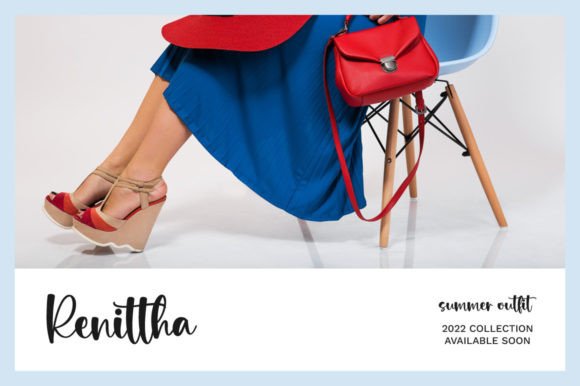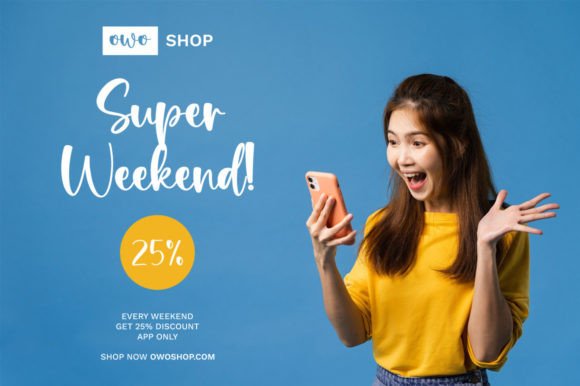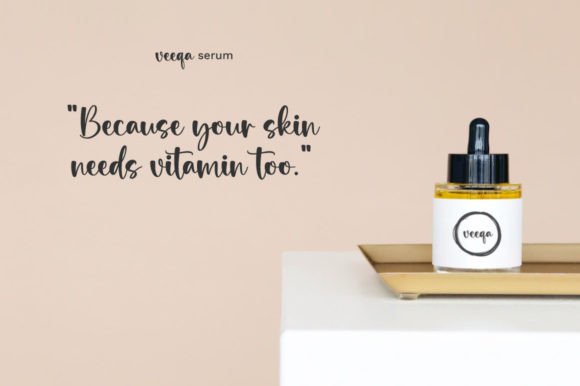
About Saturday Font
“Saturday” is a delicate, elegant, and flowing handwritten font that exudes beauty and grace. This font features well-balanced characters, making it a versatile choice that complements a wide range of design applications.
The standout qualities of “Saturday” include its delicacy and elegance. Its handwritten style imparts a sense of sophistication and authenticity, making it an excellent choice for projects that aim to create a refined and graceful atmosphere.
Imagine using “Saturday” to craft elegant wedding invitations that convey a sense of romance and timeless beauty. Visualize incorporating this font into branding materials, such as logos and stationery, for businesses or products that want to project an image of sophistication and refinement. “Saturday” can also be a valuable asset for designing quotes, book covers, or any creative endeavor that seeks to evoke a sense of elegance and grace.
In conclusion, “Saturday” is more than just a font; it’s a design resource that adds delicacy and elegance to your creative work. Its handwritten style makes it versatile for various design applications where a refined and graceful tone is needed. Embrace “Saturday” as a font that enhances your designs and brings a touch of sophistication and timeless beauty to your projects, creating an atmosphere of delicate elegance.